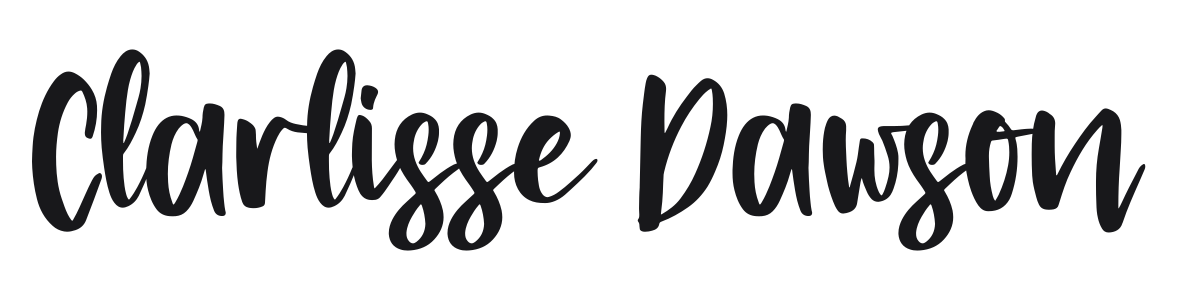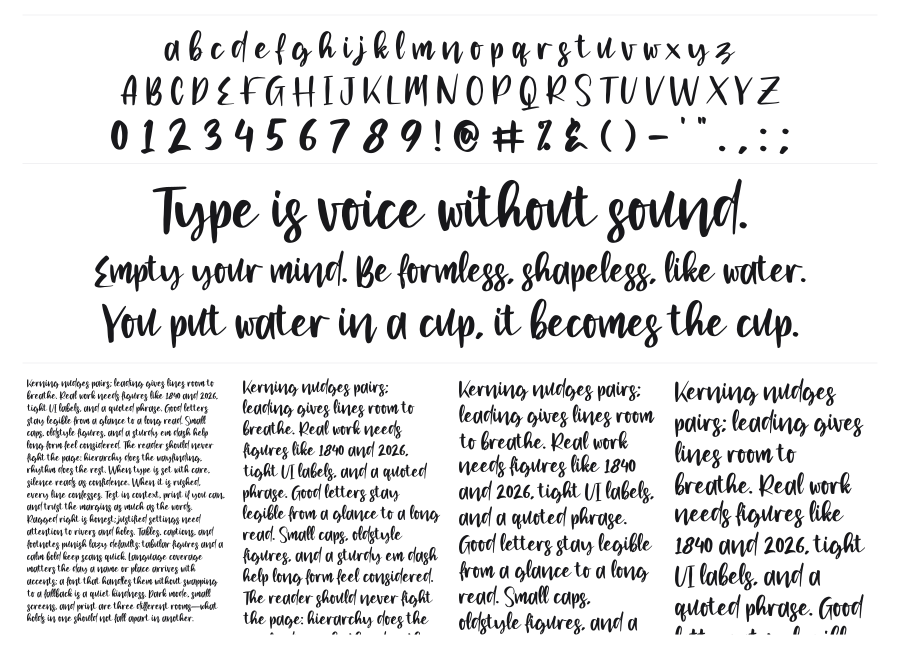
Clarlisse Dawson
Clarlisse Dawson is a bold contemporary brush script with expressive thick-to-thin stroke contrast and a lively, bouncy energy. The connected letters flow naturally across the baseline, giving it the feel of confident hand-lettering rather than mechanical type. It carries warmth and personality well in logos, packaging, and editorial display contexts.